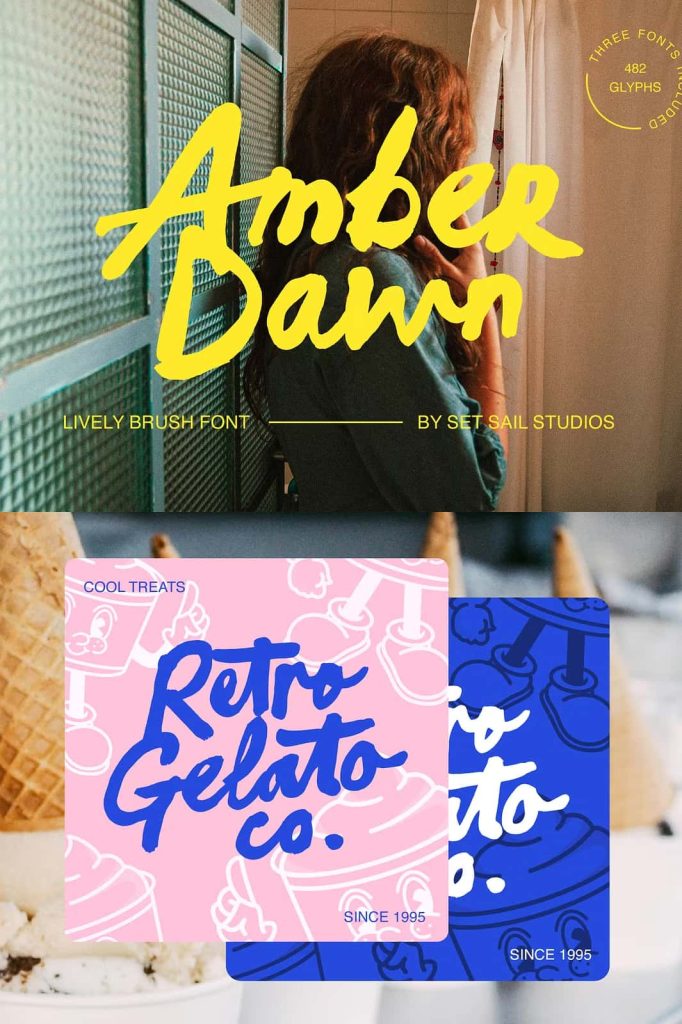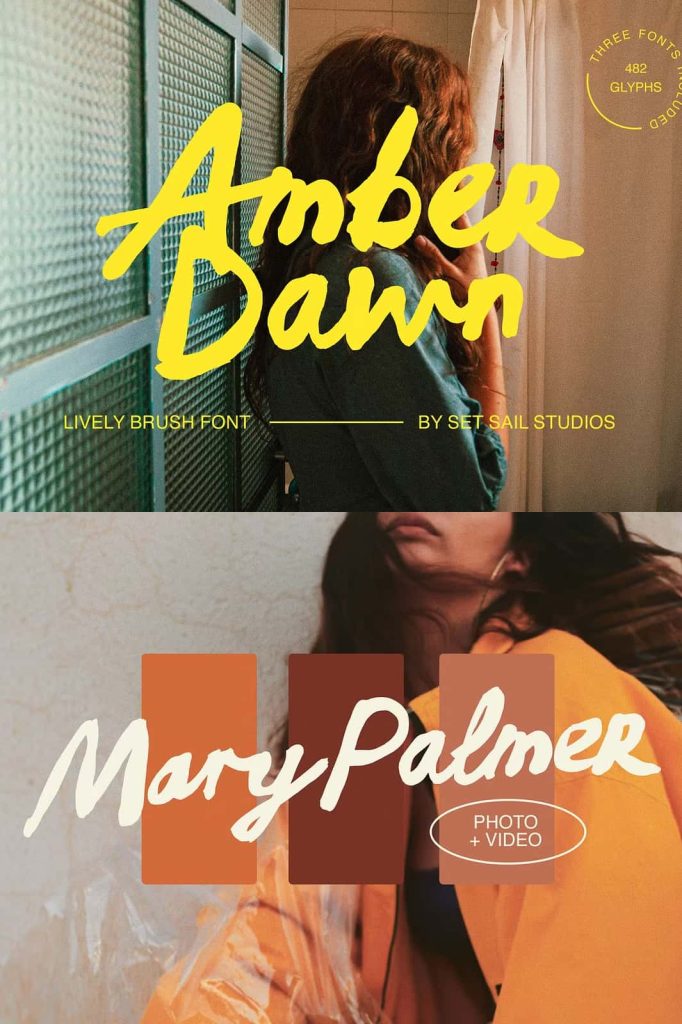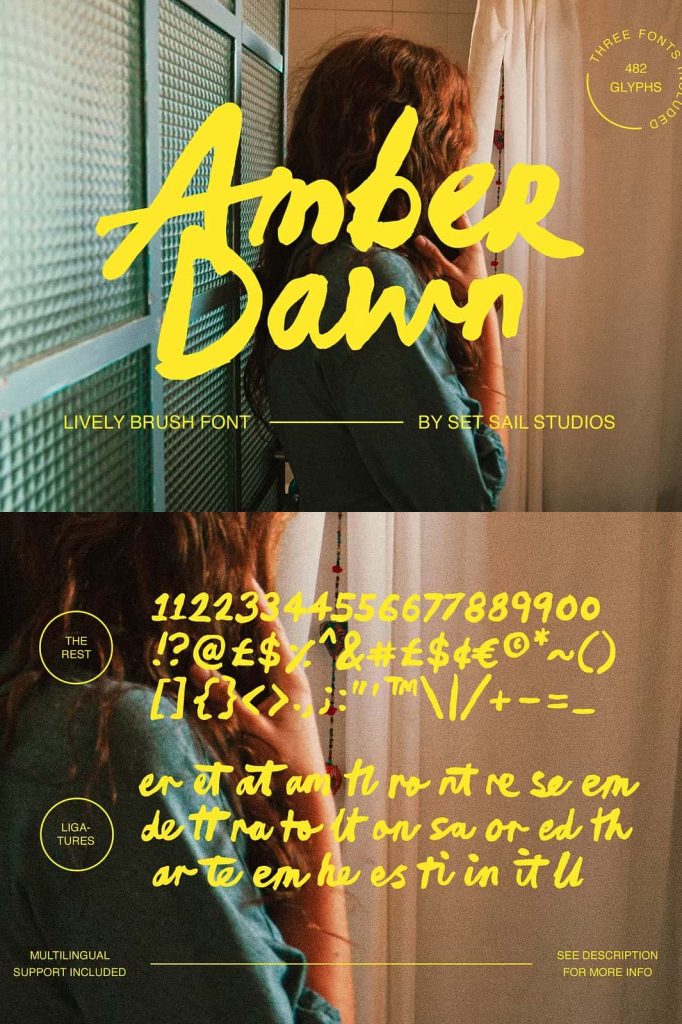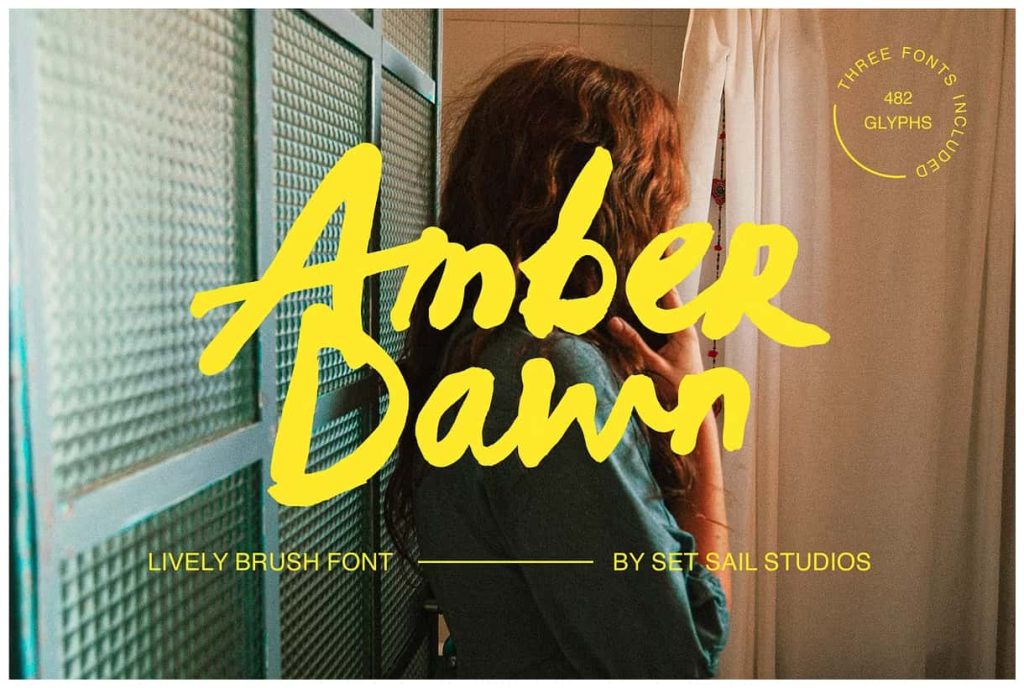
Amber Dawn Brush Font: Bold, Lively, and Full of Character
Amber Dawn is a vibrant and expressive brush font that brings energy and personality into every design. Created with a real paintbrush and acrylic ink, this typeface captures the raw beauty of hand-painted lettering. It delivers a bold presence while preserving the natural imperfections that make handcrafted typography so appealing.
This font stands out because it embraces an untamed and carefree style. Instead of aiming for perfect uniformity, Amber Dawn celebrates irregular strokes, textured edges, and organic movement. These features give your designs a dynamic and authentic feel that instantly attracts attention.
Handcrafted Authenticity in Every Stroke
Amber Dawn reflects true craftsmanship. Each letter shows the natural variation of brush pressure, ink flow, and movement. These subtle inconsistencies create a realistic texture that digital fonts often lack. As a result, your text feels more personal, artistic, and engaging.
The use of real brush techniques ensures that every character carries a sense of motion and life. This quality allows designers to create compositions that feel spontaneous and energetic. Whether you design a headline or a logo, Amber Dawn adds depth and visual interest.
A Perfect Choice for Bold and Playful Designs
Amber Dawn excels in projects that demand strong visual impact. Its bold strokes and lively rhythm make it ideal for designs that need to stand out quickly. You can use it to communicate creativity, fun, and confidence in a clear and direct way.
This brush font works particularly well for branding and display purposes. Its expressive nature allows you to create designs that feel unique and memorable. From modern brands to retro-inspired concepts, Amber Dawn adapts effortlessly to different creative directions.
Best Use Cases for Amber Dawn
- Playful logos and brand identities
- Retro and vintage-inspired posters
- Packaging design with a handmade feel
- Social media graphics and promotions
- Display text for headlines and titles
Bring Retro Revival Style to Your Projects
Amber Dawn captures the spirit of retro design while maintaining a fresh and modern edge. Its textured brush strokes and bold shapes reflect classic hand-painted signage and vintage artwork. This makes it an excellent choice for projects that aim to revive nostalgic aesthetics.
Designers can use this font to create striking visuals that blend past and present styles. Whether you work on a retro poster or a contemporary brand with vintage influence, Amber Dawn helps you achieve a distinctive look that resonates with audiences.
Enhance Branding with Strong Personality
Amber Dawn gives your brand a powerful and recognizable voice. Its expressive style communicates confidence and creativity, helping your designs stand out in competitive markets. By using this font, you can create branding that feels bold, authentic, and full of life.
This font works especially well for brands that want to appear approachable and energetic. It adds a human touch that connects with audiences on an emotional level. The handcrafted quality makes your visuals feel genuine rather than overly polished or generic.
Pairing Amber Dawn with Complementary Fonts
To maintain balance in your design, pair Amber Dawn with clean and simple fonts. Sans serif or minimal serif fonts work well as supporting elements. They provide contrast and improve readability while allowing Amber Dawn to remain the focal point.
Use Amber Dawn for headlines, logos, or key phrases, and combine it with a neutral font for body text. This combination ensures your design stays clear and professional while still delivering strong visual impact. Avoid overly decorative pairings that may compete with its bold character.
Streamline Your Creative Workflow
Amber Dawn helps you create impactful designs quickly. Its natural texture and strong presence reduce the need for additional effects or heavy editing. You can achieve a handcrafted look without spending hours on manual brushwork.
The font encourages experimentation. Try different sizes, alignments, and compositions to explore its full potential. Its versatility allows you to adapt it to various styles, from playful and casual to bold and dramatic.
Key Advantages of Amber Dawn
- Authentic hand-painted brush texture
- Bold and expressive letterforms
- Perfect for retro and modern designs
- Enhances branding with strong personality
- Easy to combine with simple fonts
Conclusion
Amber Dawn is more than just a brush font; it is a creative tool that brings energy and authenticity into your work. Its handcrafted details, lively strokes, and bold character make it an excellent choice for designers who want to create memorable visuals. By using Amber Dawn, you can transform ordinary text into a powerful design element that captures attention and leaves a lasting impression.